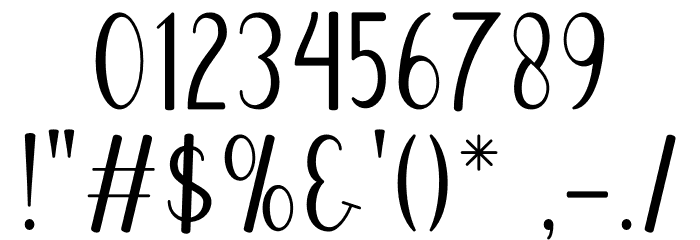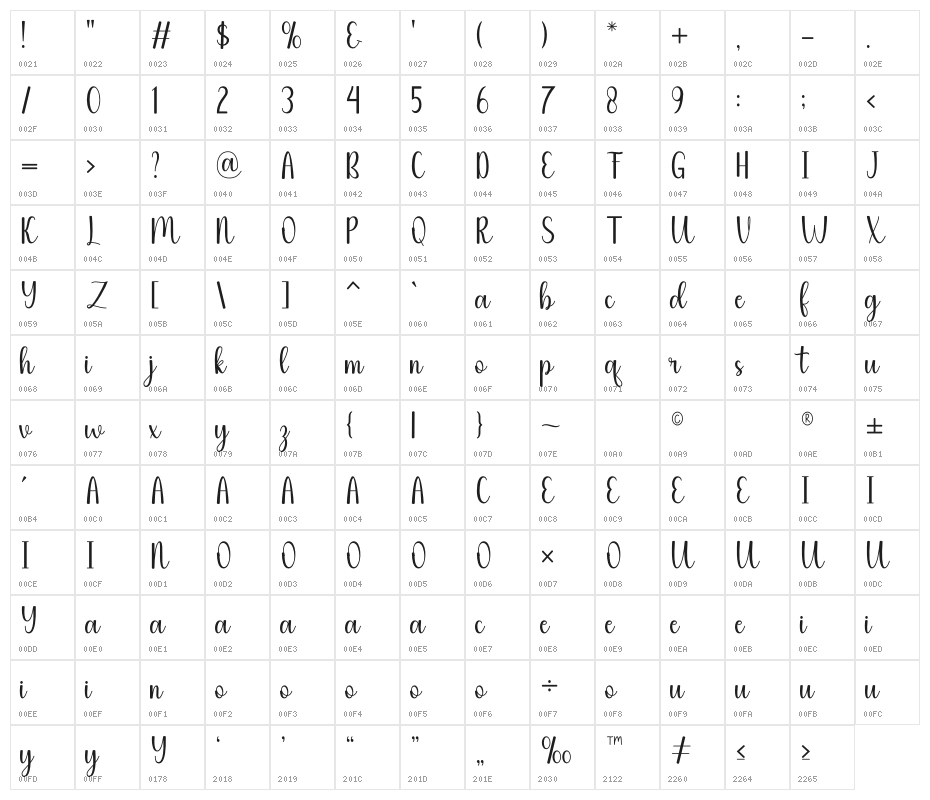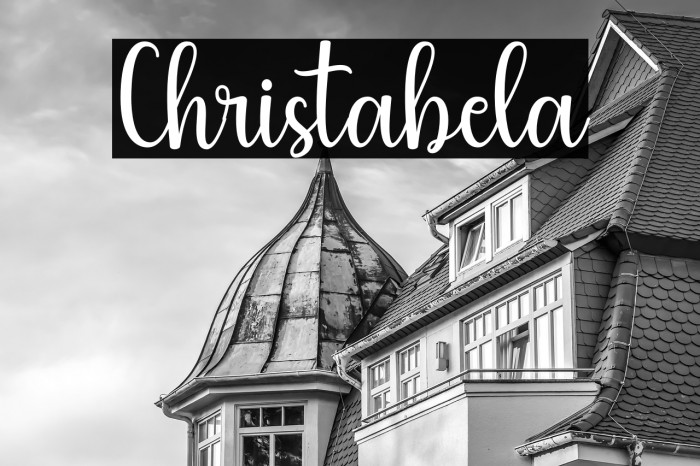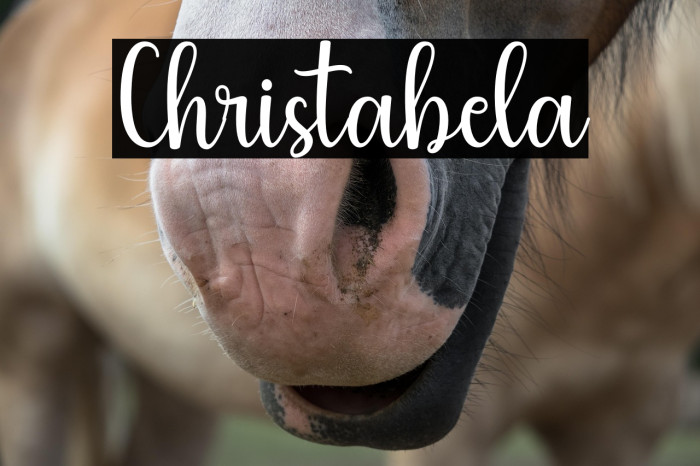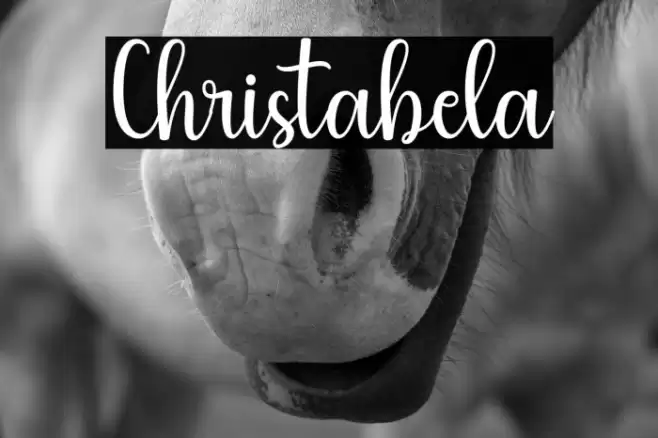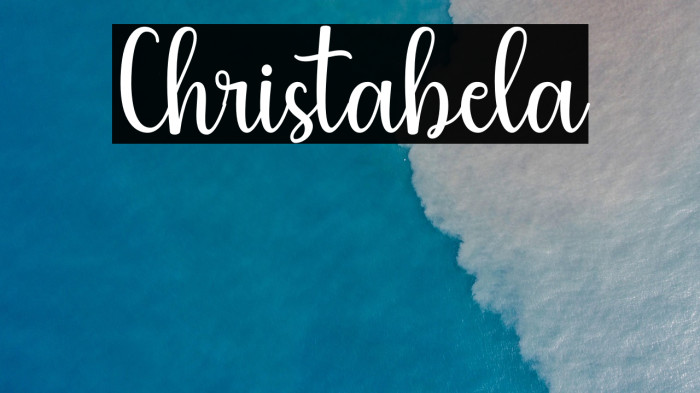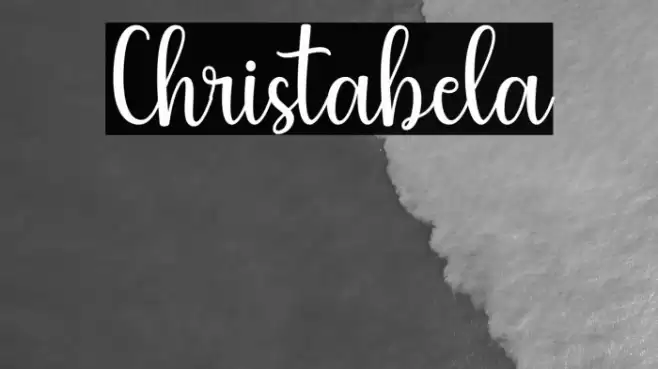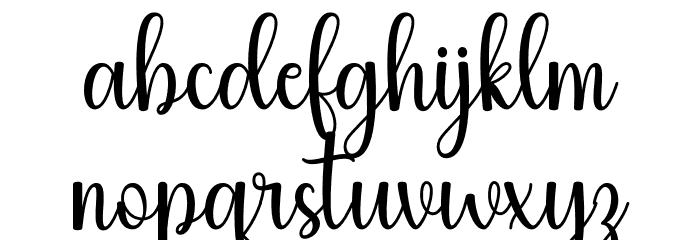
Christabela Font
Christabela Description
This font features a playful and elegant script style with a modern twist. The uppercase letters are tall and slightly condensed, with a mix of straight and curved lines that add a dynamic flow. The lowercase letters are more fluid, with a handwritten feel that enhances its casual elegance. The numerals are consistent with the overall style, maintaining a balance between readability and artistic flair. Special characters are designed to complement the alphabet, ensuring a cohesive look across all text. This font is versatile, suitable for a variety of creative projects.